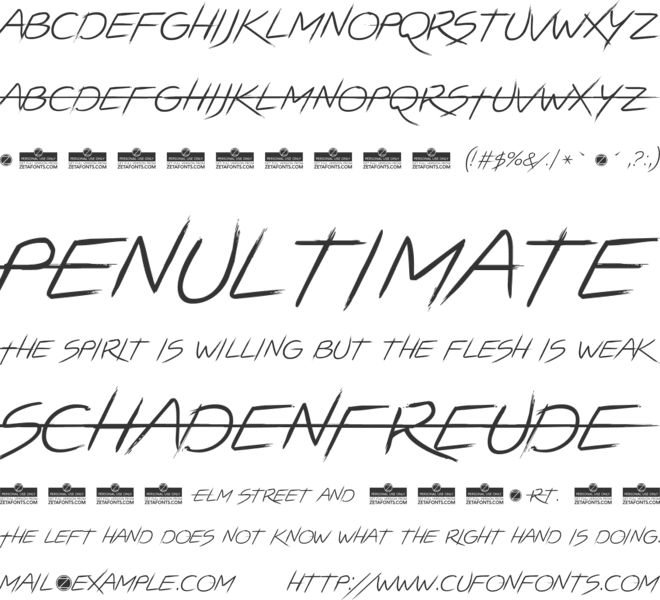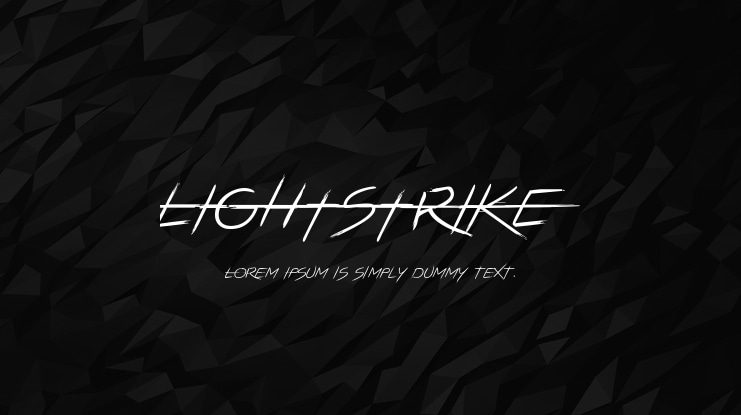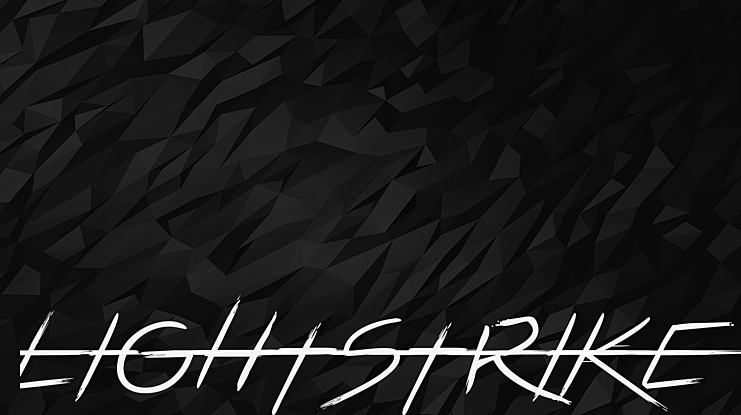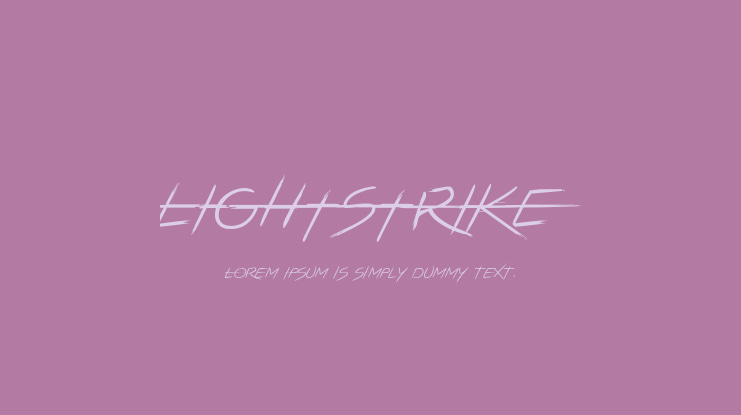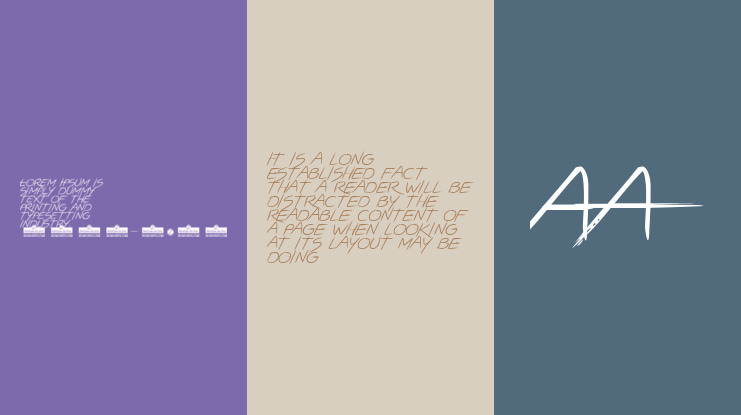
Francesco Canovaro
Designed by Francesco Canovaro, Lightstrike covers over 40 languages that use the Latin alphabet, with a full range of accents and diacritics.is the a gestural brush type design The typeface contains no lowercase set, but it doubles the uppercase with a strikethrough alternate set to be used for dynamic logo design and unusual word highlighting. Lightstrike can work togheter with its heavier weight (Brushstrike) but can also be used in white on dark background for light effects.----------------------------This trial font is TOTALLY FREE for NONCOMMERCIAL USES.For commercial uses and to download the full commercial typeface visitwww.zetafonts.com/brushstrike (http://www.zetafonts.com/brushstrike)----------------------------If you have a graphic design blog, you can get a FREE LICENSE by writing a blog post about this typeface.----------------------------Have a question?:  (mailto:)